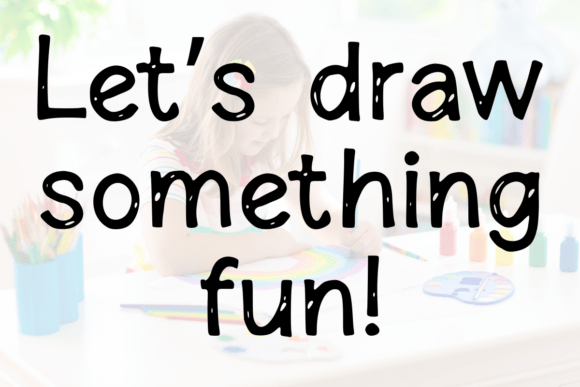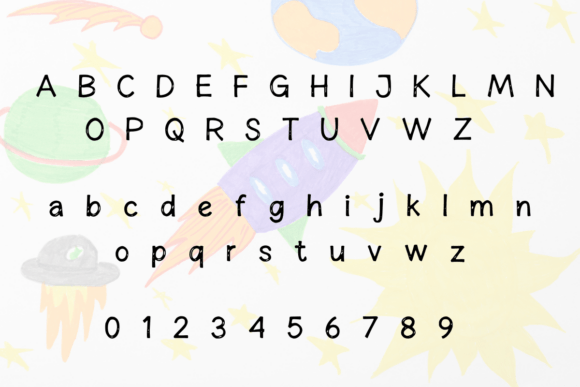
Introduction to Pencilcrumbs Font
Pencilcrumbs is a playful handwriting font with rough pencil texture, sketch-like movement, and natural charm.
Perfect for coloring books, school projects, journaling pages, and educational resources .
Key Features of Pencilcrumbs Font
Why Choose Pencilcrumbs Font?